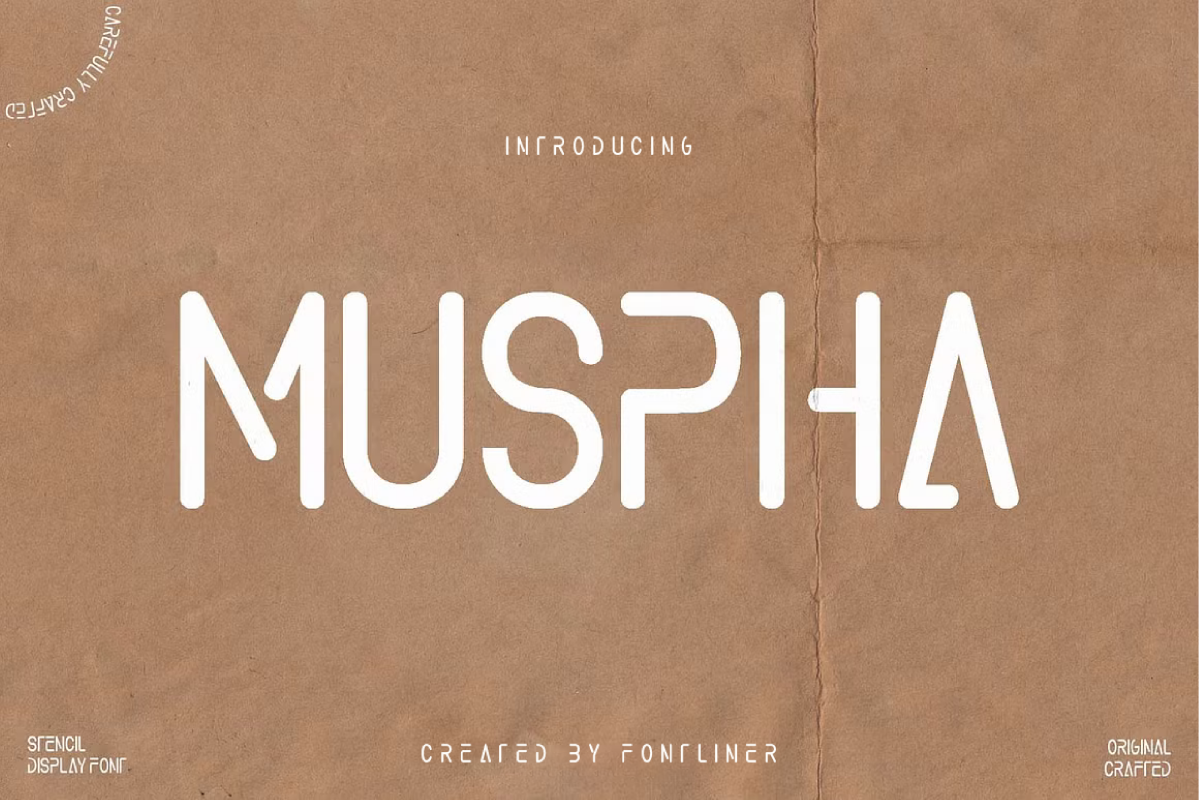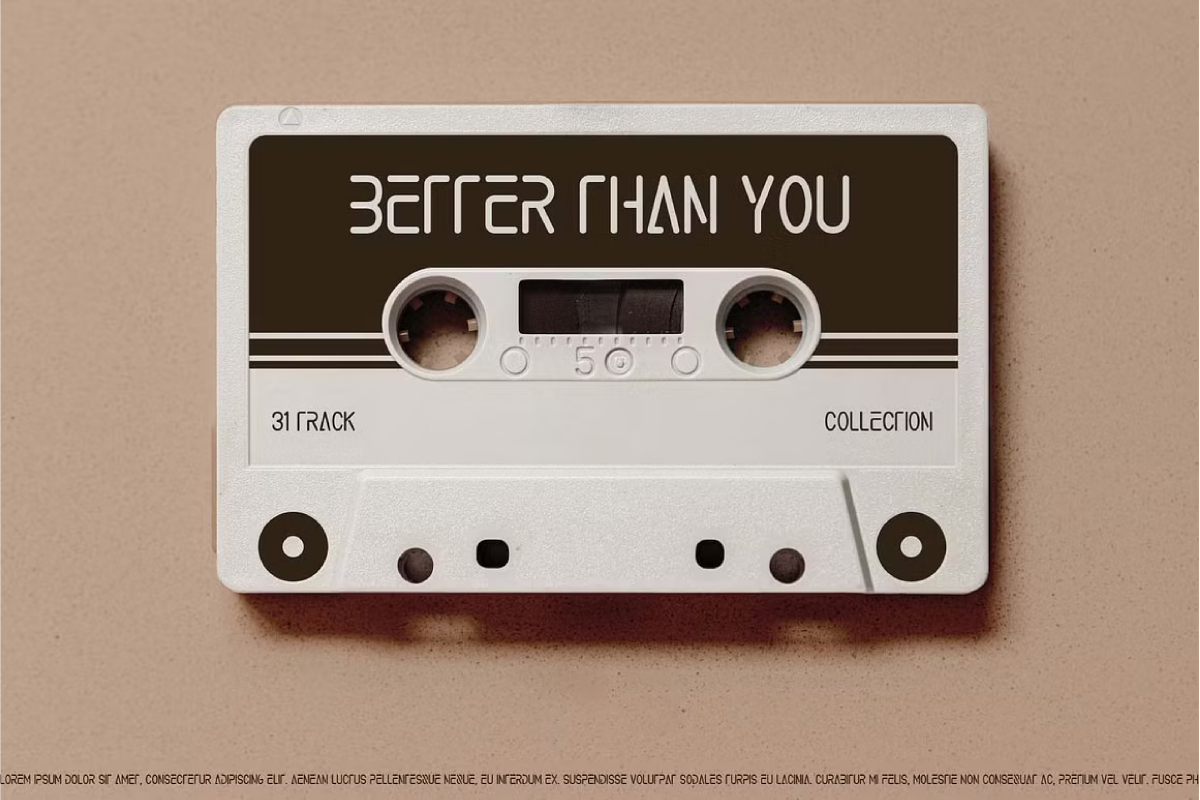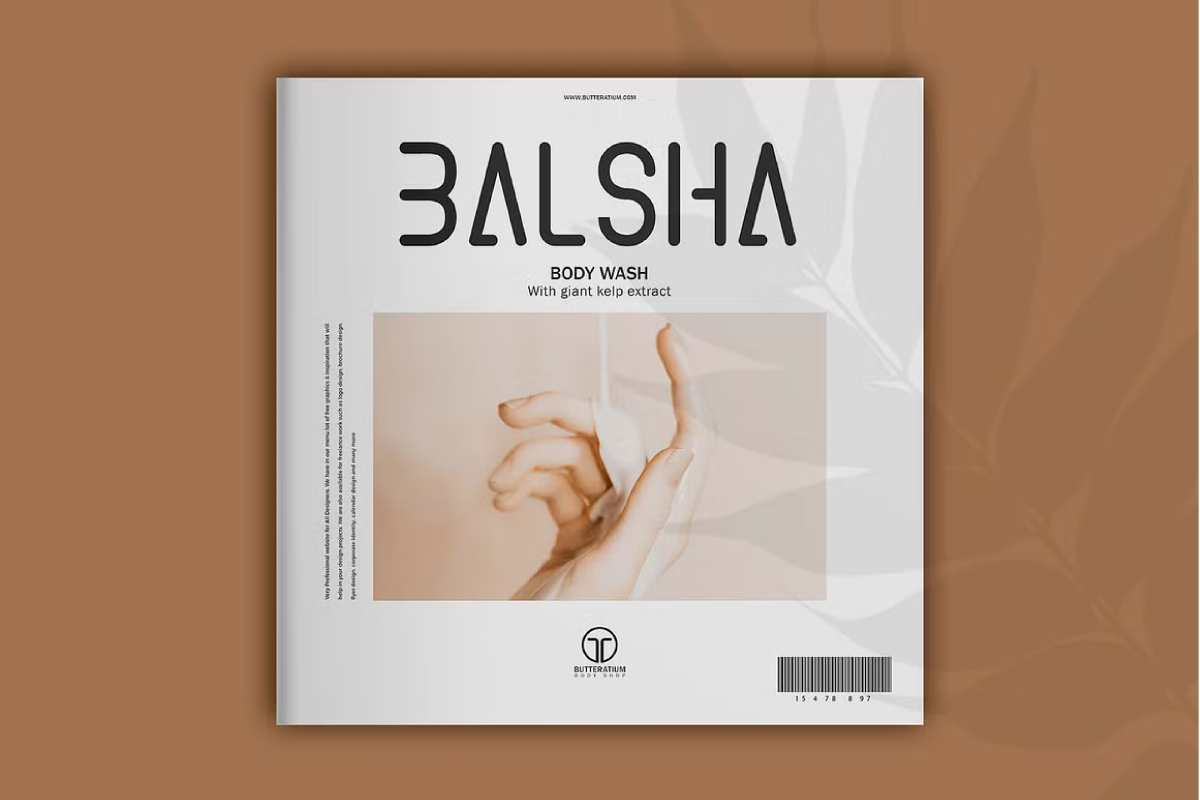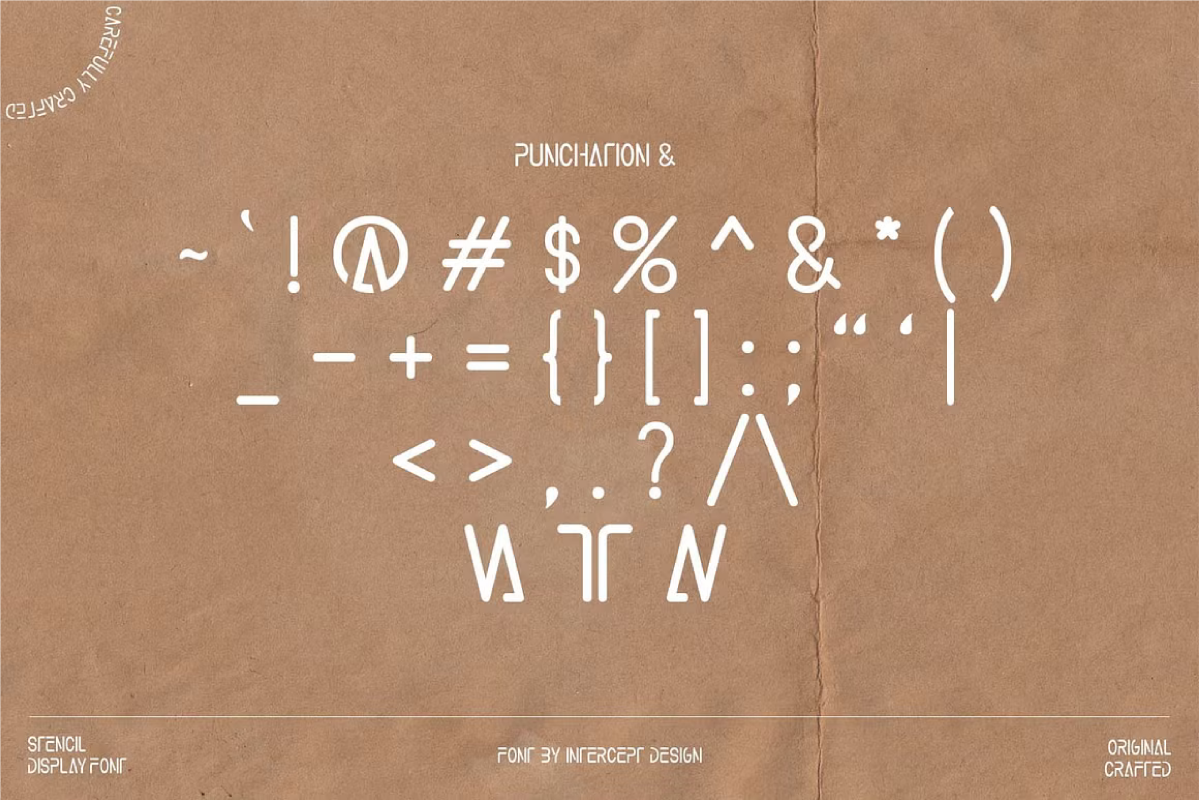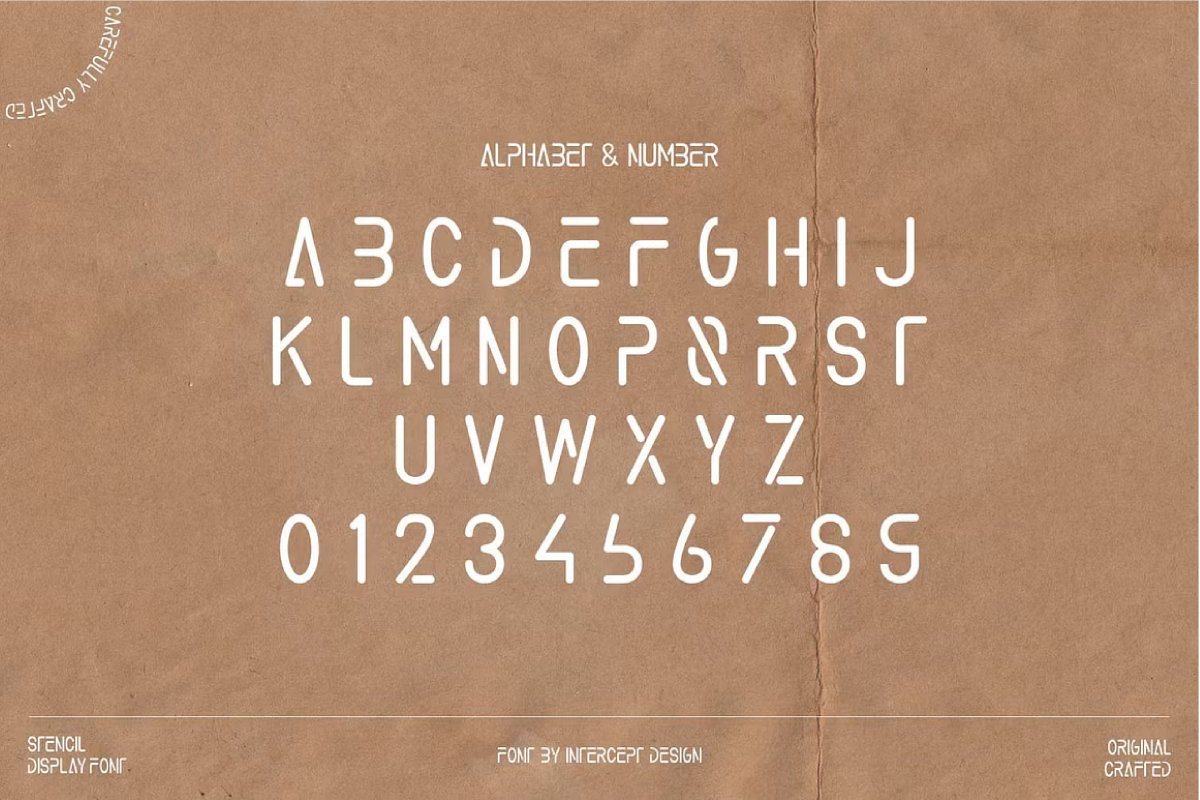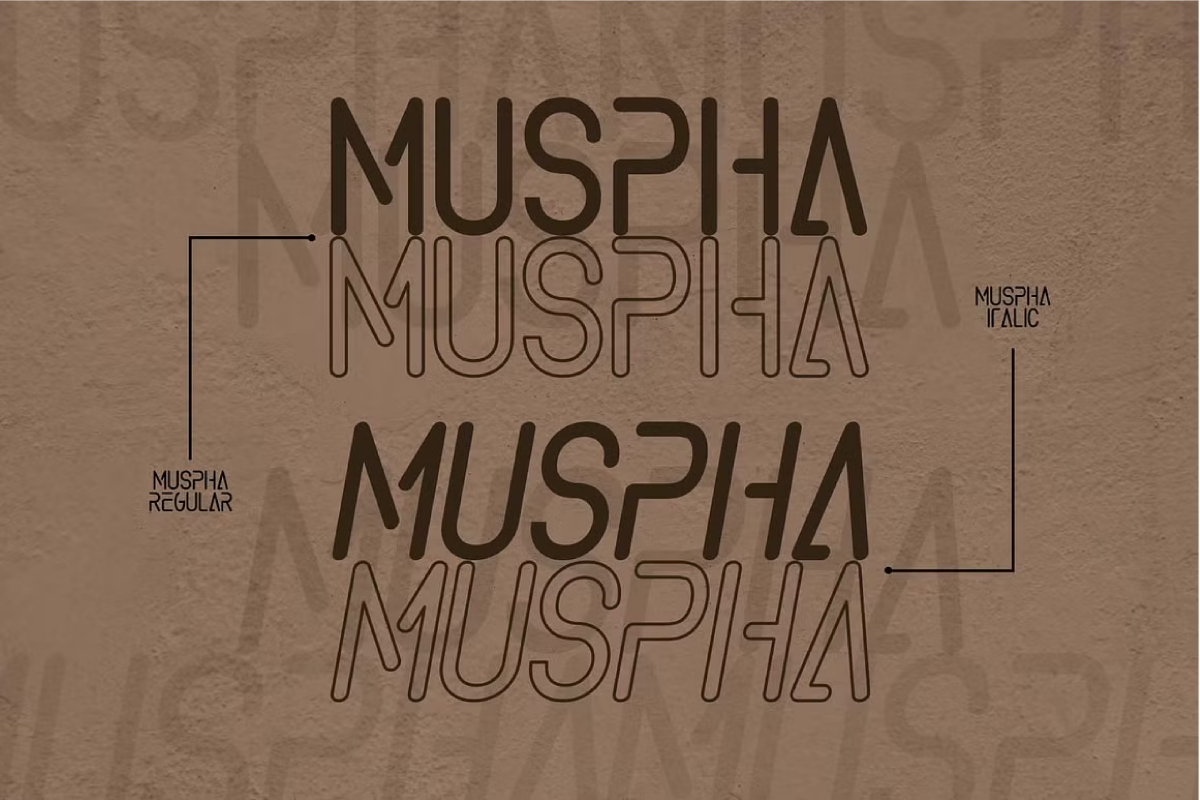
Muspha - Stencil Display Font
Muspha is a Stencil Display Font. This fonts includes uppercase letters, numerals, a large range of punctuation. This font was created in a Retro style. Created for poster, web design, branding, illustrations, badges and some other works.